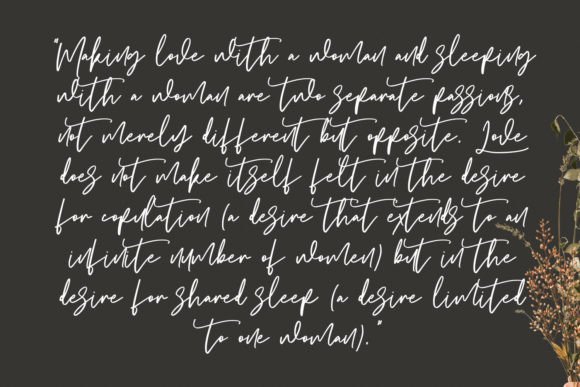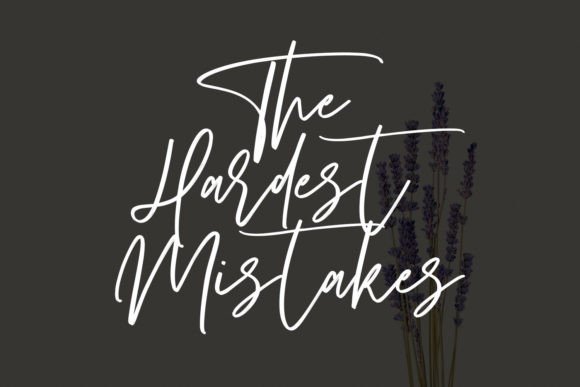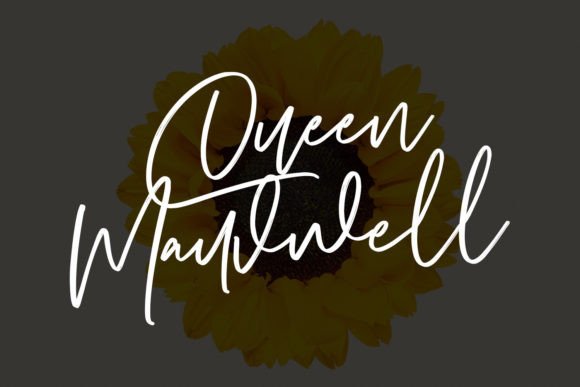
About Slovary Font
Slovary is a dazzling script font. This font is neatly crafted and highly detailed. Whatever the topic, this font will be a wonderful asset to your font library, as it has the potential to enhance any creation.